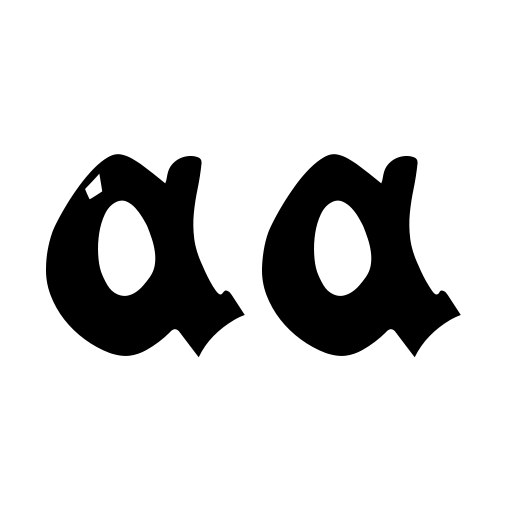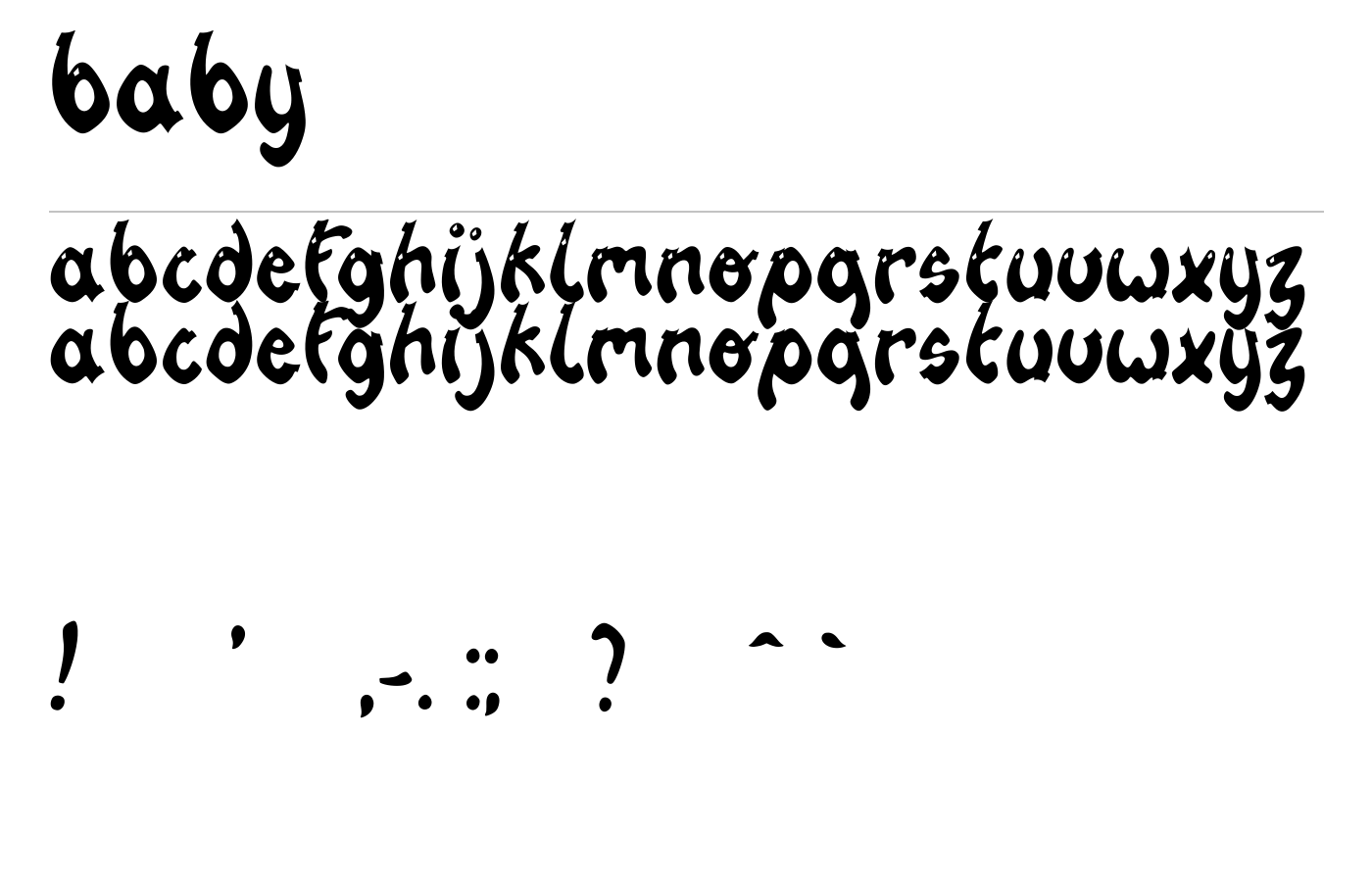
Baby Font is a playful and whimsical handwritten typeface with thick, uneven strokes and quirky letter shapes that evoke a casual, childlike charm. Its bold weight and irregular curves make it perfect for fun, informal designs such as children's books, party invitations, and creative branding that aims to feel friendly and approachable. This font's unique character and expressive style bring a lively, joyful personality to any project.
Baby Font
About Baby Font
| Font family | Baby Font |
| Designer | Rebecca Lardeur |